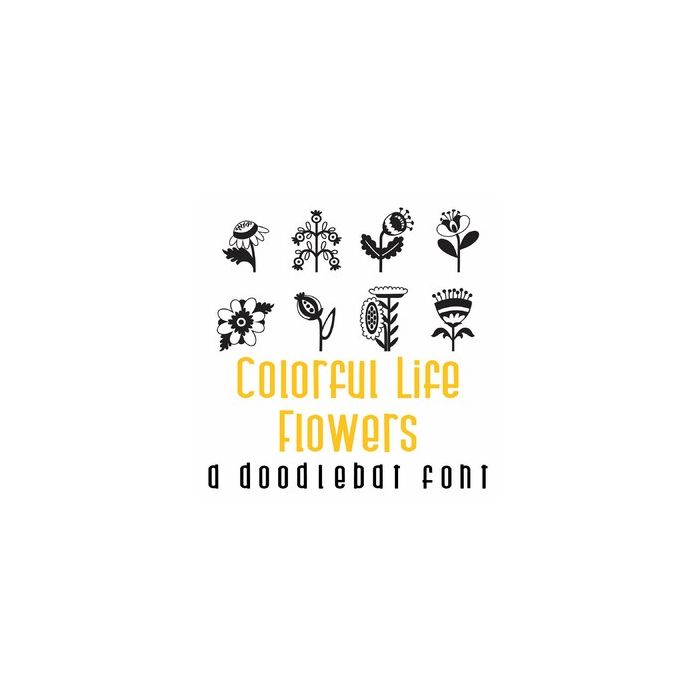
Colorful Life - Flowers Doodlebat Font
This fun doodlebat features fun spring flowers! Perfect for scrap book pages, planner stickers, decor, card making, gifts and more!